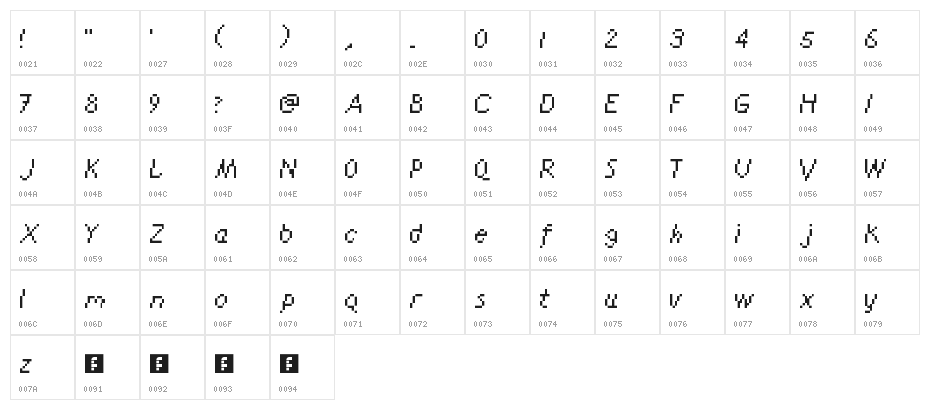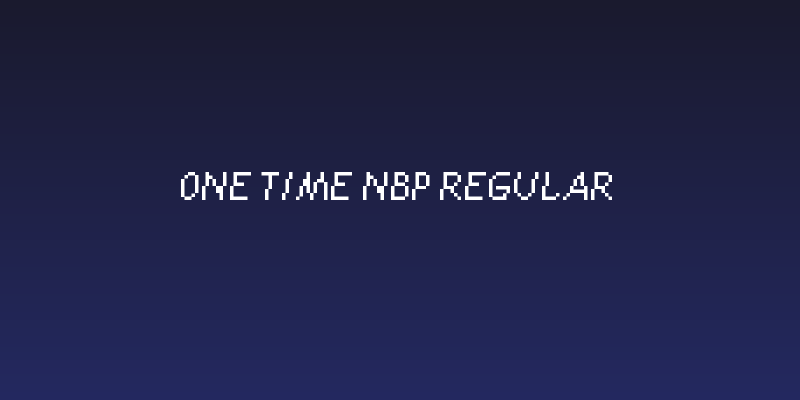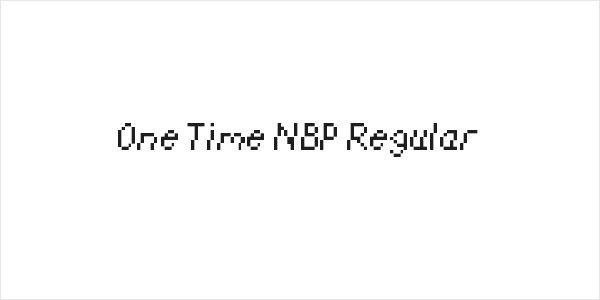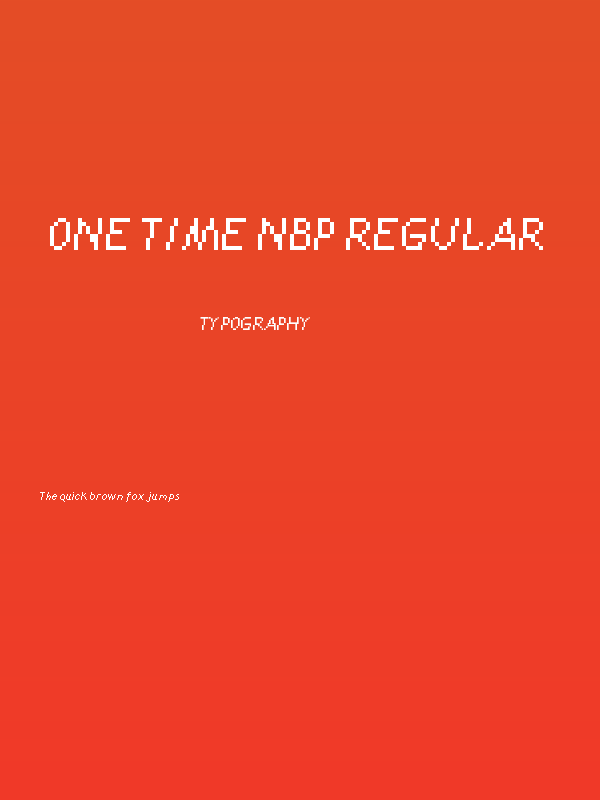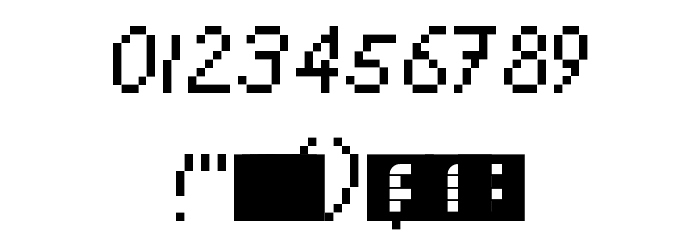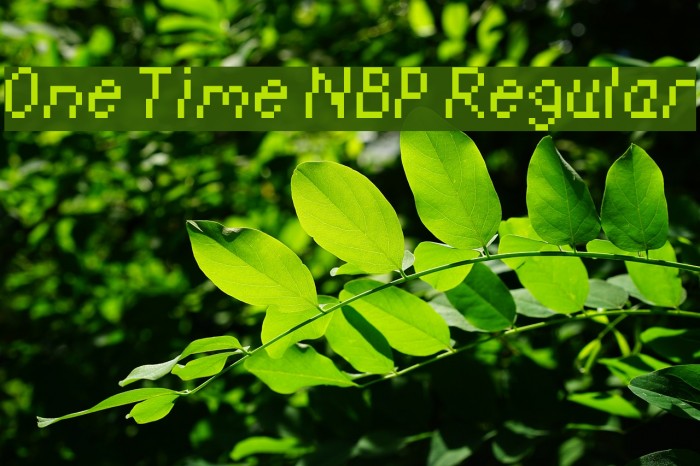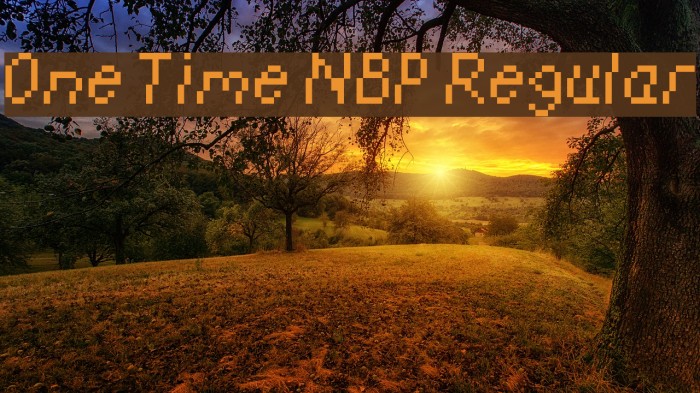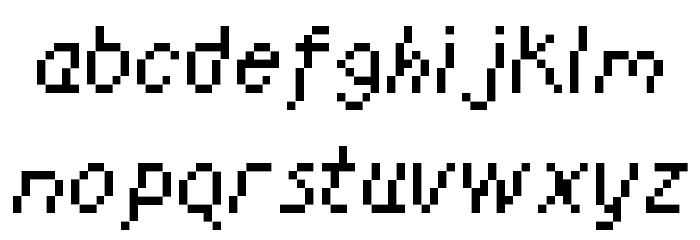
One Time NBP Regular Font
One Time NBP Regular Description
This font features a pixelated, blocky style reminiscent of early digital or video game typography. Each character is constructed with a uniform grid-like pattern, giving it a distinctly retro and digital aesthetic. The uppercase and lowercase letters maintain a consistent height and width, contributing to a monospaced appearance. The numerals and special characters follow the same pixelated design, ensuring uniformity across all glyphs. This font's simplicity and clarity make it highly legible, even at smaller sizes, while its unique style adds a nostalgic charm.